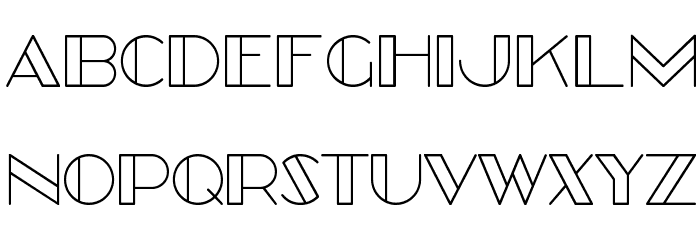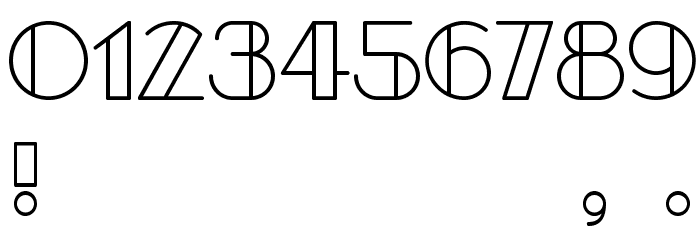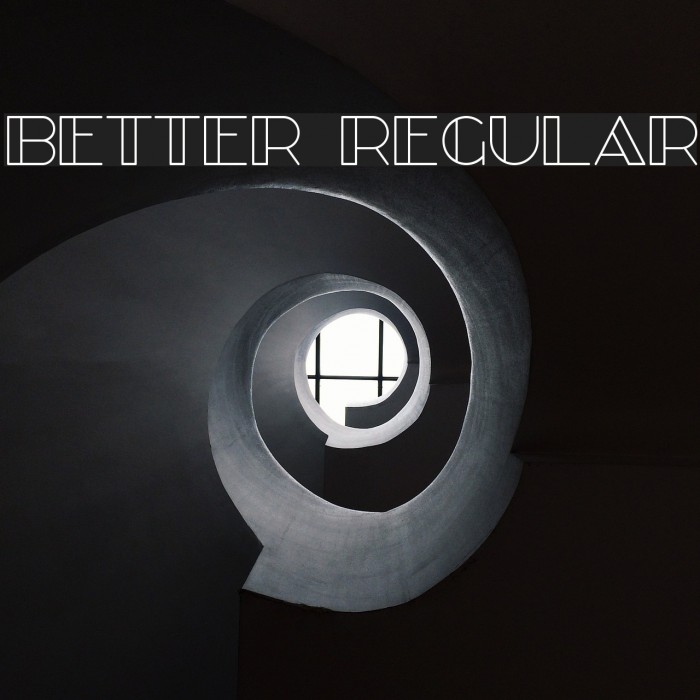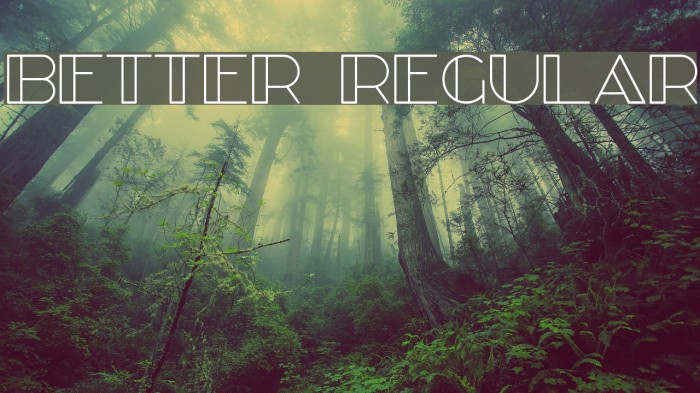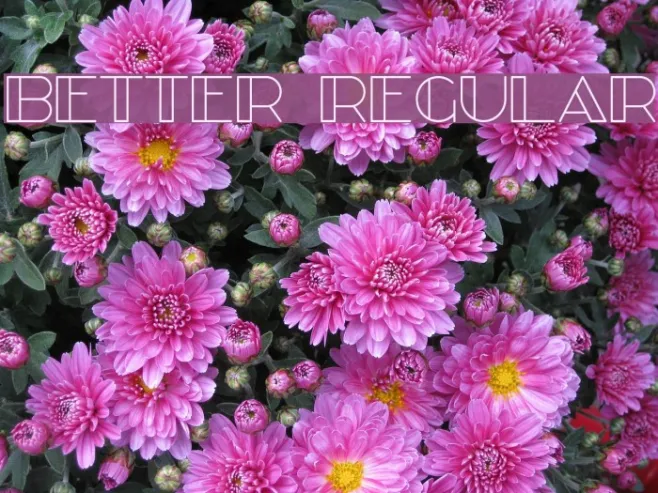
Better Regular Font
This font features a geometric and modern design with clean lines and a minimalist aesthetic. The characters are constructed with a consistent stroke width, creating a uniform appearance. The uppercase letters are bold and striking, while the lowercase letters maintain a similar style, ensuring readability. The numerals are distinct and align well with the overall design, making them suitable for various applications. The special characters are designed to complement the alphabet, maintaining the font's cohesive look. This font's simplicity and elegance make it versatile for both digital and print media.
A geometric, modern font with clean lines and consistent stroke width.
- Proposed Projects: Ideal for branding, logos, headlines, and modern web design.